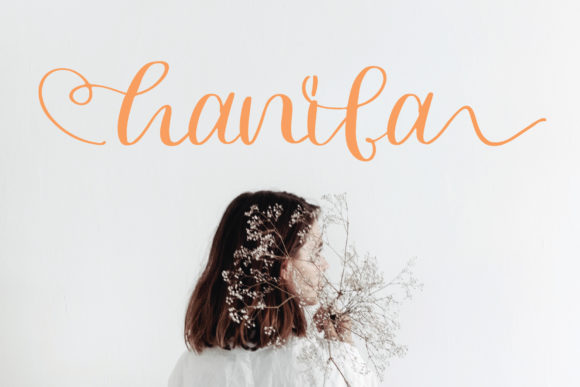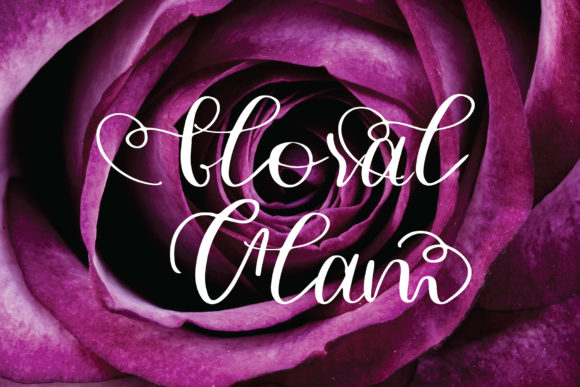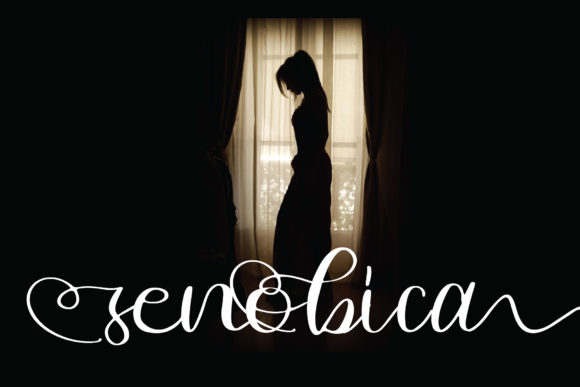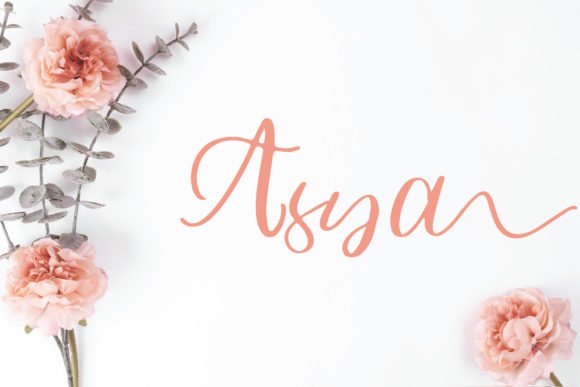
Introduction to Asya Font
Asya is a gorgeous and elegant script font that delivers an incredibly charming font experience.
This script will allow you to create a wide variety of designs, ranging from titles and headlines to logos or posters Fall in love with its romantic appeal.
Key Features of Asya Font
Why Choose Asya Font?
Asya Font offers exceptional quality and versatility, making it a valuable addition to your design toolkit. Whether you’re creating for personal projects or commercial use, Asya Font delivers professional results.